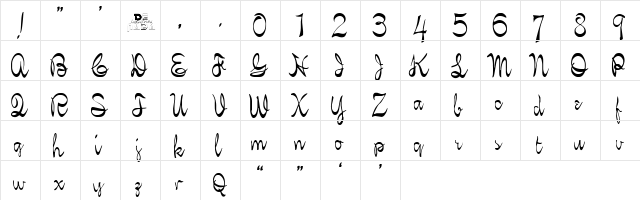
Kelly Regular Font Preview
Kelly Regular
Design Context for Kelly Typeface
Kelly is a composed and adaptable typeface that performs quietly and consistently across a wide range of design contexts.